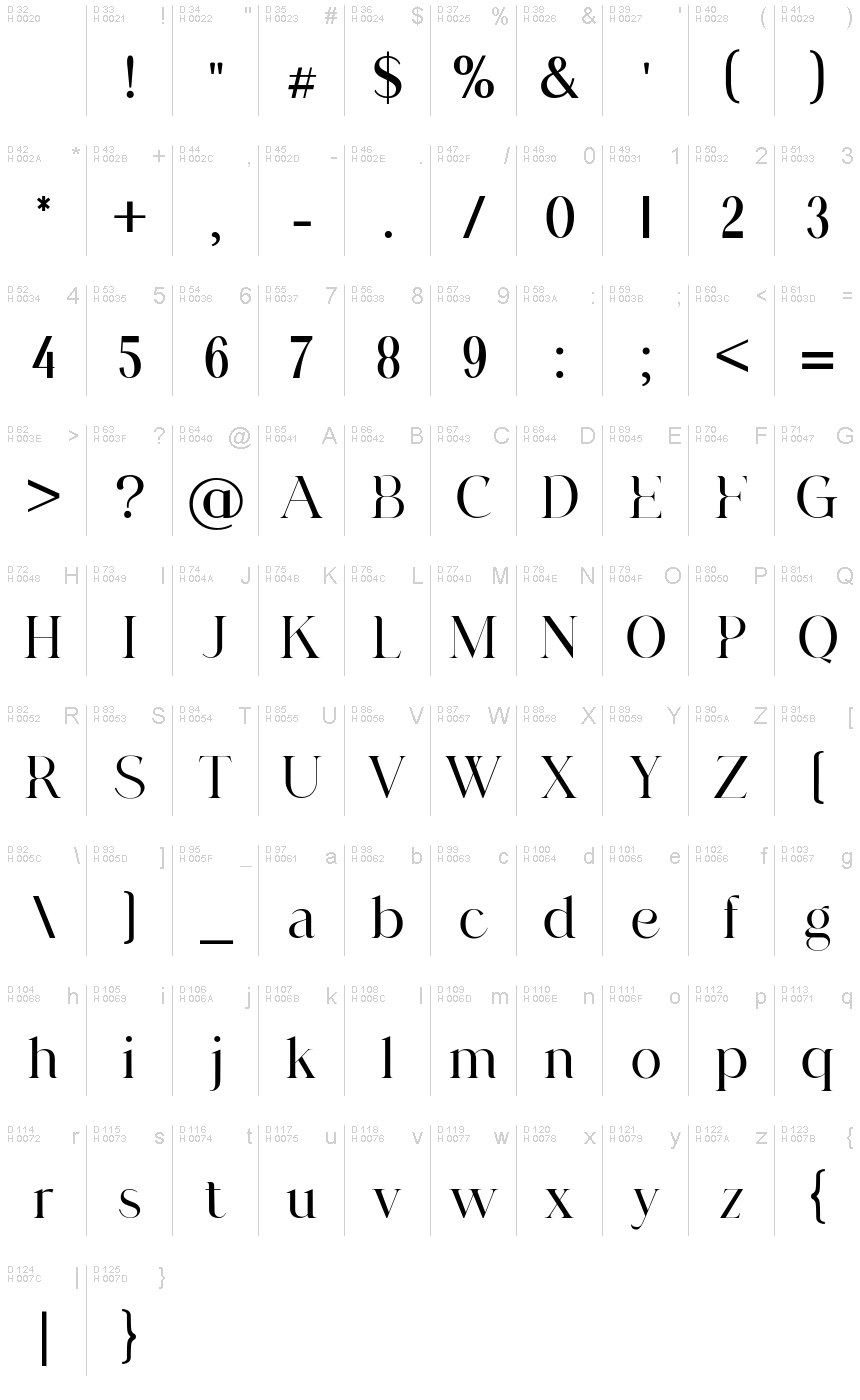
AgathiasStenchy
Agathias Stenchy, crafted by UI Creative, is a serif font that exudes elegance and sophistication. Its refined serifs and slender strokes create a timeless appeal, perfect for projects that require a touch of class. The font’s graceful curves and balanced proportions make it ideal for high-end branding, editorial designs, and upscale invitations.
Agathias Stenchy's aesthetic appeal lies in its ability to blend traditional serif elements with a modern sensibility, making it versatile enough for both classic and contemporary design contexts. Embrace the allure of Agathias Stenchy to elevate your next project with an air of distinguished refinement.